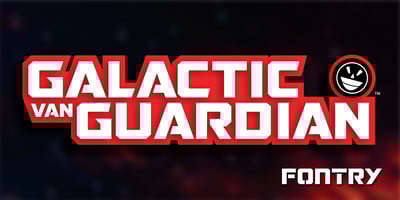
FTY Galactic VanGuardian Font Family was designed by Michael Gene Adkins and published by The Fontry. FTY Galactic VanGuardian contains 3 styles and family package options. The celluloid has been minted — digitally of course — flora and fauna are speaking and even walking. The universe is a wide-open space, a collection of mysterious galaxies and celestial things capable of destroying entire worlds. Enter the latest offering by the Fontry, a 3-font family eager to add its weight to an ongoing typographical battle that will span the stars. Freeware version of Galactic VanGuardian is available at: http://www.fontspace.com/the-fontry/galactic-vanguardian